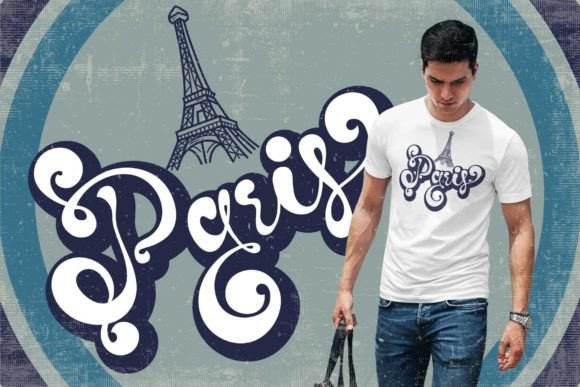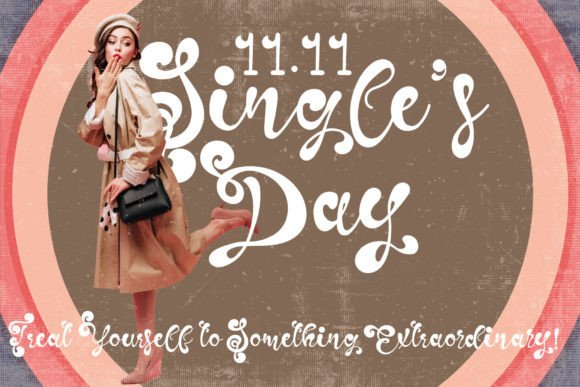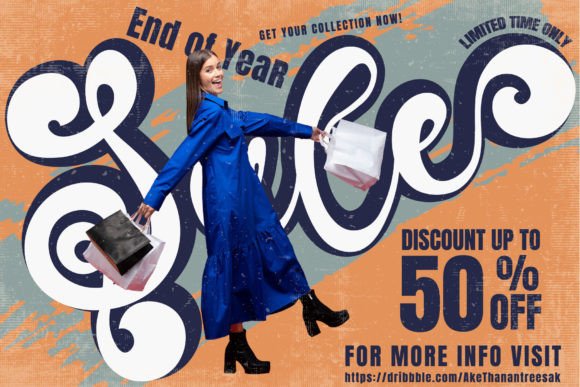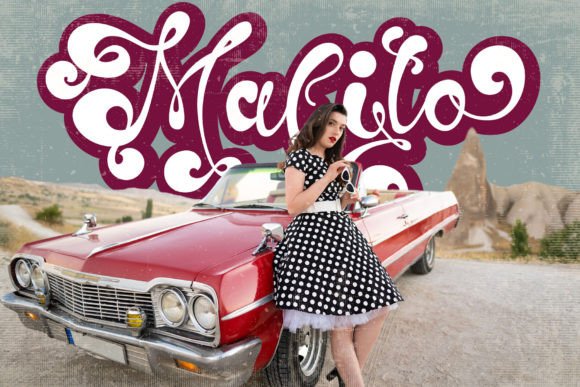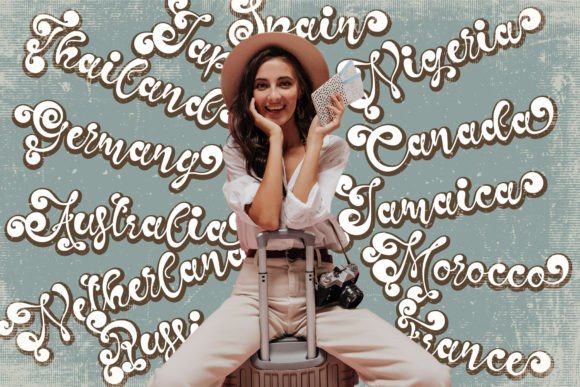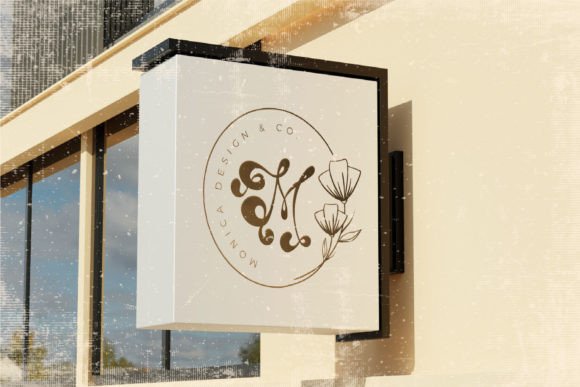
Introduction to Riety Font
Remember that moment when you’re brainstorming a new design project and you can’t quite find the right font to capture the essence of your idea? You scroll through countless options, but nothing seems to fit the vibe you’re going for. That’s where Riety Font comes in – a game-changing display font that effortlessly blends the classic charm of retro typography with a modern twist.
As a valuable design resource, Riety Font offers a unique blend of vintage and contemporary elements, making it the perfect addition to any creative project. Its distinctive letterforms and nostalgic aesthetic will transport your designs back in time, while its high-quality design ensures a seamless and professional finish. Whether you’re working on a logo, poster, or branding project, Riety Font is a must-have for designers looking to elevate their work and make a lasting impression.
Key Features of Riety Font
- Riety Font is a high-quality design resource ideal for creative projects, offering a unique and stylish aesthetic.
- This font family is highly versatile and can be used for a wide range of creative projects, from logos and branding to digital products and print materials.
Honest Review: Riety Font
As a designer, I’m always on the lookout for high-quality design resources to enhance my creative projects. The Riety Font is a recent discovery that caught my attention, and I’m excited to share my honest review with you.
- ✨ Unique and modern design aesthetic that sets it apart from other fonts.
- ✨ Excellent for use in digital design projects, including logos, icons, and graphics.
- ✨ The font comes with a transparent background, making it easy to use in various design scenarios.
- ⚠️ The font may not be suitable for print design projects, as it can appear pixelated at larger sizes.
- ⚠️ Limited character set, which may not be ideal for complex design projects.
Overall, I’m impressed with the Riety Font’s potential to elevate my design projects. While it has its limitations, it’s a great addition to any designer’s toolkit, especially for free download. If you’re looking for a modern, high-quality font for your creative projects, the Riety Font is definitely worth checking out.
Common Use Cases for Riety Font
Riety Font is commonly used in graphic design, digital art, and creative projects that require a high-quality, unique font. Its transparent background makes it easy to use in various design applications.